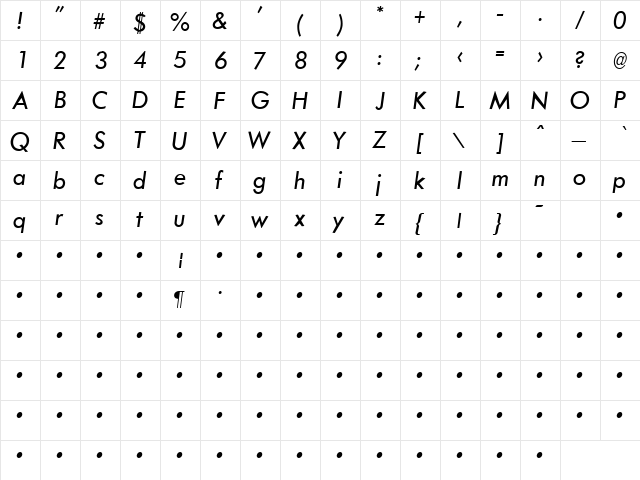
Loving 3 Italic
Design Context for Loving 3 Typeface
Loving 3 takes a measured approach to typography — its balanced proportions and neutral character make it a reliable workhorse for both digital and print work. The slanted form adds forward momentum and visual energy.
Pro Tip: Try Loving 3 for annotation and caption copy alongside an upright companion — the contrast in angle creates a dynamic but ordered typographic system.